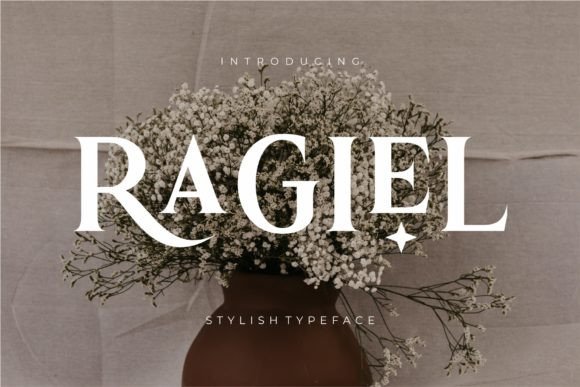
Introducing Ragiel Font, the crown jewel of serif fonts, meticulously crafted by Dylla Studio to cater to the discerning tastes of fashion-forward designers. Inspired by the allure of minimalist logos, Ragiel Font exudes an air of sophistication and elegance that will elevate your creative projects to new heights.
Immerse yourself in the world of fashion, where Ragiel Font reigns supreme. Its sleek lines and timeless curves evoke a sense of luxury and refinement, perfectly complementing fashion logos, branding, and advertising campaigns. With Ragiel Font, your designs will radiate with an aura of exclusivity and sophistication, captivating the attention of your audience.
Unleash your creativity and explore the endless possibilities that Ragiel Font presents. Design stunning templates, brochures, videos, and invitations that exude an air of elegance. Create layouts that exude sophistication and allure, perfect for capturing the essence of fashion and beauty. Whether you're a seasoned designer or just starting out, Ragiel Font will empower you to create captivating designs that leave a lasting impression.
With Ragiel Font as your creative companion, you'll find yourself effortlessly crafting designs that resonate with your audience. Its versatility extends beyond the realm of fashion, making it an ideal choice for branding, logos, and layout design. Its minimalist aesthetic seamlessly blends with various design styles, allowing you to effortlessly create cohesive and visually stunning projects.
Embark on a design journey like no other with Ragiel Font, the ultimate choice for fashion-forward designers. Elevate your creativity and captivate your audience with designs that exude elegance, sophistication, and timeless beauty.